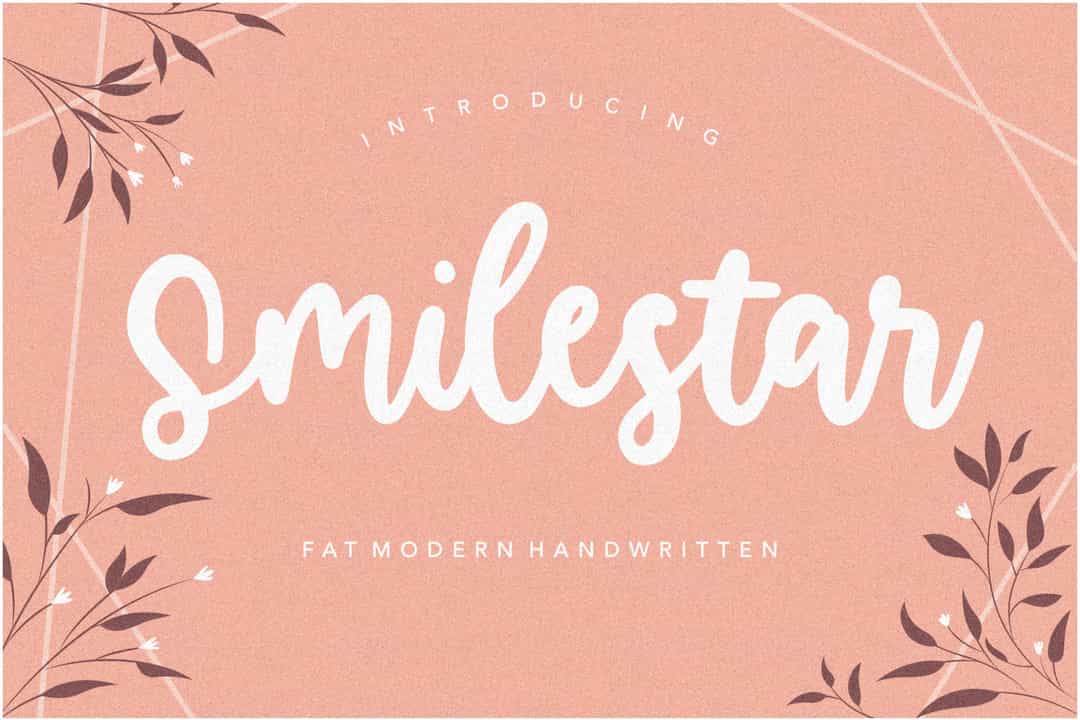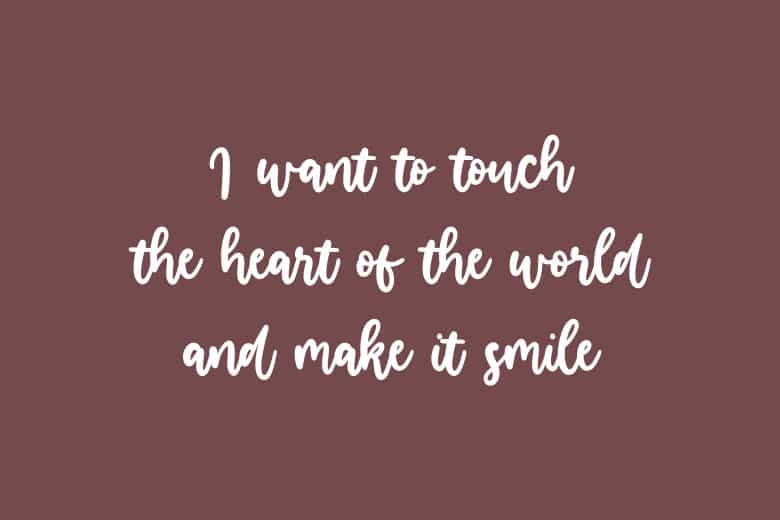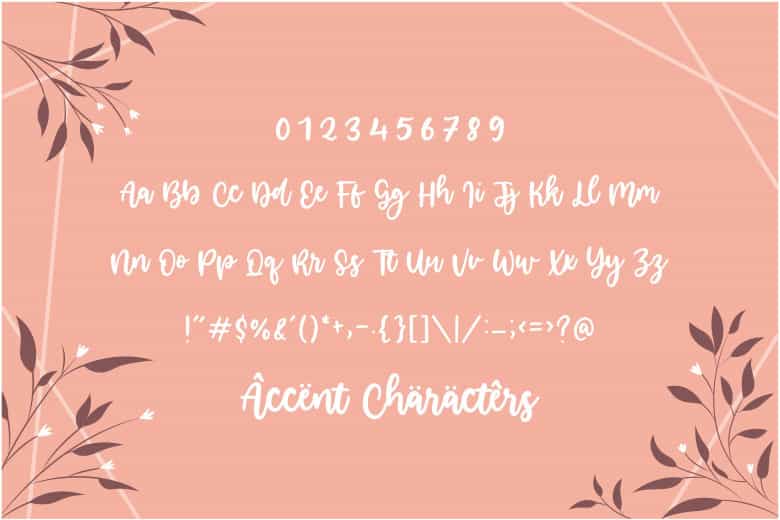
Smilestar is a beautiful script font that has quite a personal and one of a kind feel to it. It looks stunning when used in all capital letters or with a wide spacing to give the designs an elegant look; however, it works well in lower-case and capital letters to give classic designs.